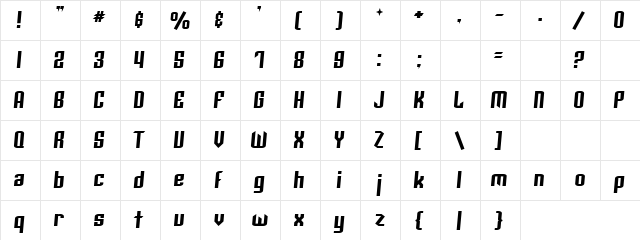
Charlie slant Regular
Design Context for Charlie slant Typeface
Charlie slant takes a measured approach to typography — its balanced proportions and neutral character make it a reliable workhorse for both digital and print work.